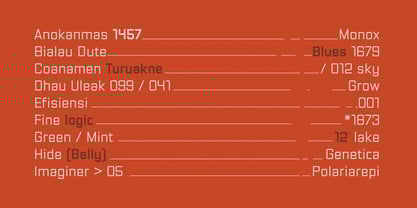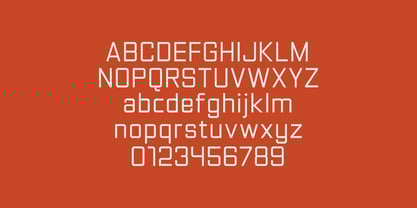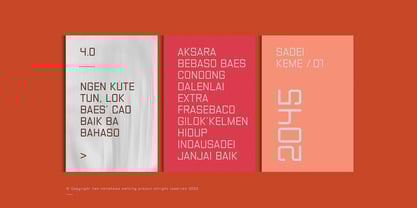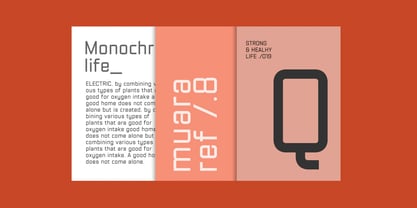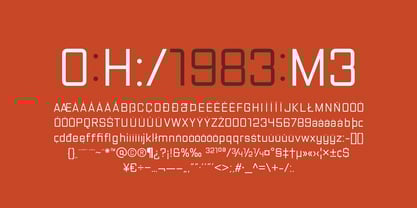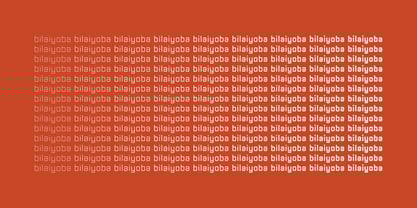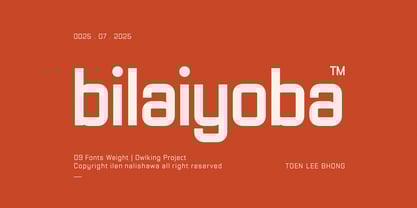
Bilaiyoba
by Owl king project
The Bilaiyoba Font Family was designed by Darhilen and published by Owl king project. Bilaiyoba contains 9 styles and family package options.
Bilaiyoba is a sans serif font designed by lien nalishawa with nine weights, ranging from thin to bold. This font has a more modern and futuristic style. Its capital letters are perfect for short, bold titles. It also features lowercase letters for use in short sentences.
This font is also suitable for large titles in the technology and sports design layout, Have Fun.